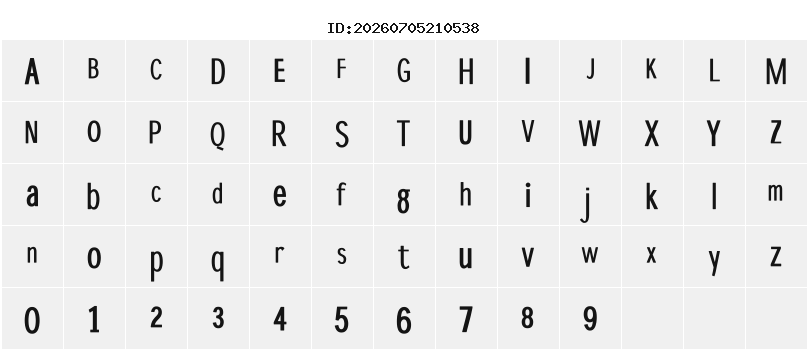
• Font Name: DisProp-Bold
• Font ID: DisProp-Bold
• Full Font Name: DisProp-Bold
• Version: 1.0 2004-08-10
• PostScript Name: DisProp-Bold
About DisProp-Bold.ttf
DisProp-Bold.ttf is a modern, elegant sans-serif font designed for ultimate readability and visual harmony. Perfect for branding, headlines, web design, and print materials.